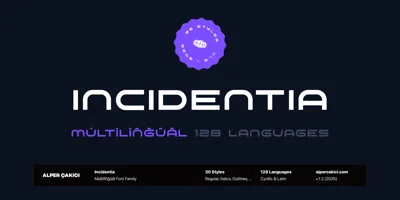
Incidentia Font
Incidentia Font is ideal for accident prevention campaigns, insurance company branding, safety training materials, risk management communications, emergency response graphics, incident reporting systems, workplace safety signage, security consulting services, crisis management documentation, and preventive applications that emphasize careful preparation and proactive safety measures.
What makes Incidentia Font truly exciting is its thoughtful balance of alertness and professionalism that communicates the critical importance of incident prevention while maintaining the calm authority needed for effective safety communication. This exceptional typeface combines clear readability with serious presence, featuring precise letterforms and systematic character that convey both vigilant awareness and methodical preparedness. The font's safety-focused personality and prevention-oriented design make it perfect for organizations seeking to communicate risk awareness, protective measures, and the essential mission of preventing incidents through careful planning and proactive safety protocols.
The Incidentia Font family includes multiple weights and styles: Light, Regular, Medium, Bold, and Alert variations designed for maximum safety impact. Each family member maintains the distinctive preventive character while offering flexibility for diverse safety applications and risk management branding systems. The comprehensive character set supports safety typography needs and preventive design elements, making it suitable for international safety communications.
When you choose Incidentia Font, you're selecting a typography guardian that delivers authentic safety credibility and preventive excellence to every protective project. This vigilant typeface excels in applications where incident prevention and safety awareness are paramount, delivering exceptional protective appeal while maintaining professional authority. Whether you're designing safety brands, prevention campaigns, risk management materials, or protective marketing content, this font provides the safety sophistication and preventive wisdom that resonates with safety professionals who appreciate proactive planning, risk mitigation, and the essential importance of preventing incidents through careful preparation and systematic safety protocols.